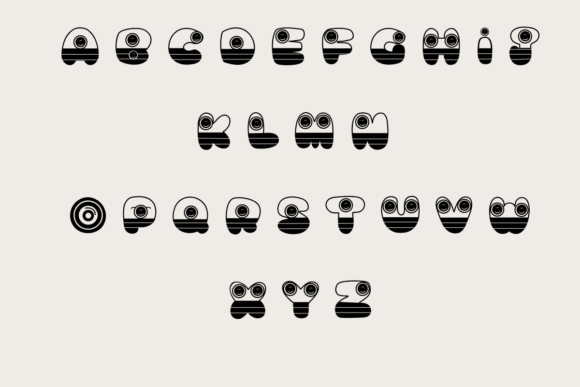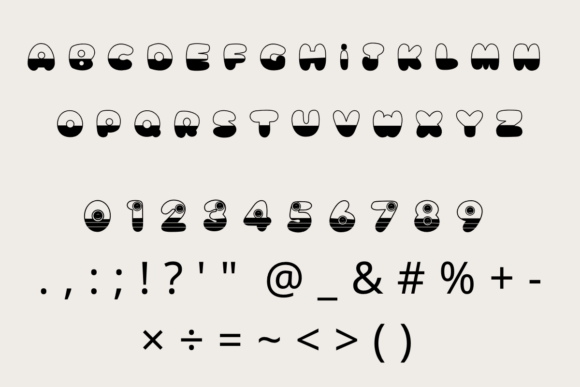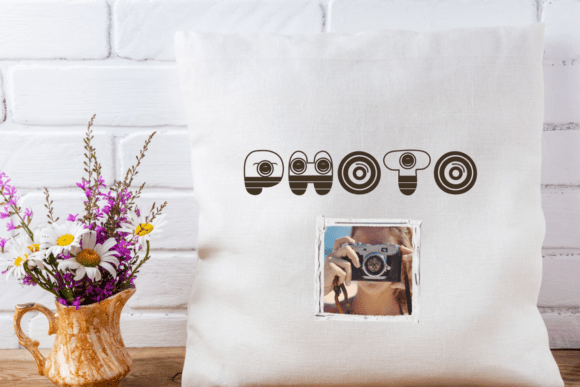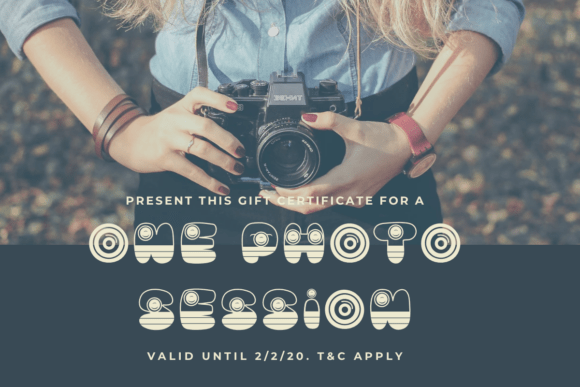
Introduction to Photgrapher Font
As a creative professional, have you ever stared at a blank canvas, searching for the perfect inspiration to spark a new project? For many designers, the spark of creativity often comes from a unique combination of visual elements and innovative typography. It’s moments like these that remind us why we love our job, and why the discovery of a new, high-quality design resource can be a game-changer.
Enter the Photgrapher Font, a bold and creative decorative font that captures the essence of photography in a truly unique way. Each letter is meticulously designed to resemble a camera, lens, or other photographic equipment, making it the perfect typeface for photography-themed branding, logos, event posters, and creative portfolios.
Key Features of Photgrapher Font
- Unique characteristic: Unique, hand-drawn design elements that add a personal touch to any project.
Honest Review: Photgrapher Font
As a designer, I’m always on the lookout for high-quality design resources that can elevate my creative projects. Recently, I stumbled upon the Photgrapher Font, and I’m excited to share my honest review.
- ✨ High-quality typography: The Photgrapher Font boasts beautiful, clean lines and a sophisticated aesthetic that’s perfect for professional designs.
- ✨ Versatility: The font is highly versatile, suitable for a wide range of creative projects, from business cards to magazine layouts.
Overall, I’m impressed with the Photgrapher Font, and I think it’s an excellent addition to any designer’s toolkit. While it may have some limitations, its high-quality typography and versatility make it a valuable design resource for creative projects.
Tips for Getting the Most Out of Photgrapher Font
Use the Photgrapher Font to create a free download design resource for your next creative project. You can also use it to add a touch of professionalism to your designs. To get the most out of the Photgrapher Font, experiment with different font sizes, styles, and colors to create unique and visually appealing designs.
The Photgrapher Font is perfect for a variety of creative projects, including business cards, brochures, and social media graphics. You can also use it to create a high-quality design for your website or blog. With the Photgrapher Font, the possibilities are endless!